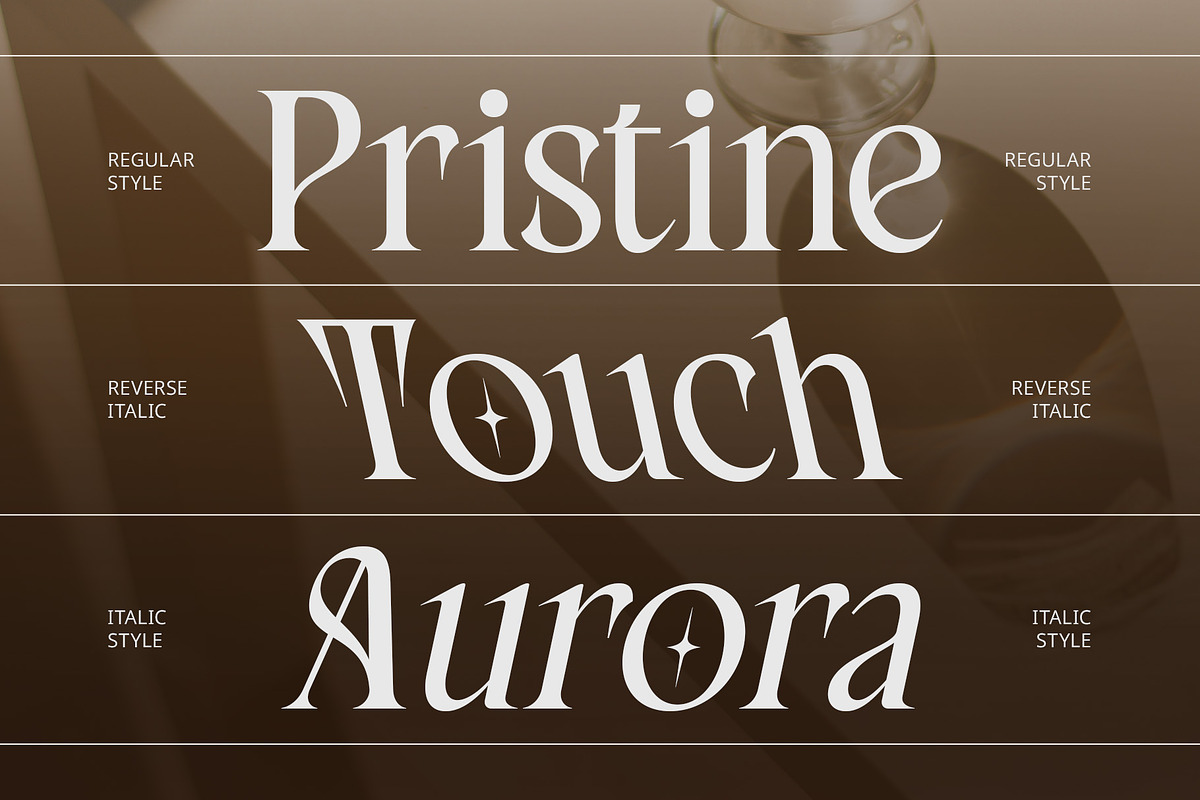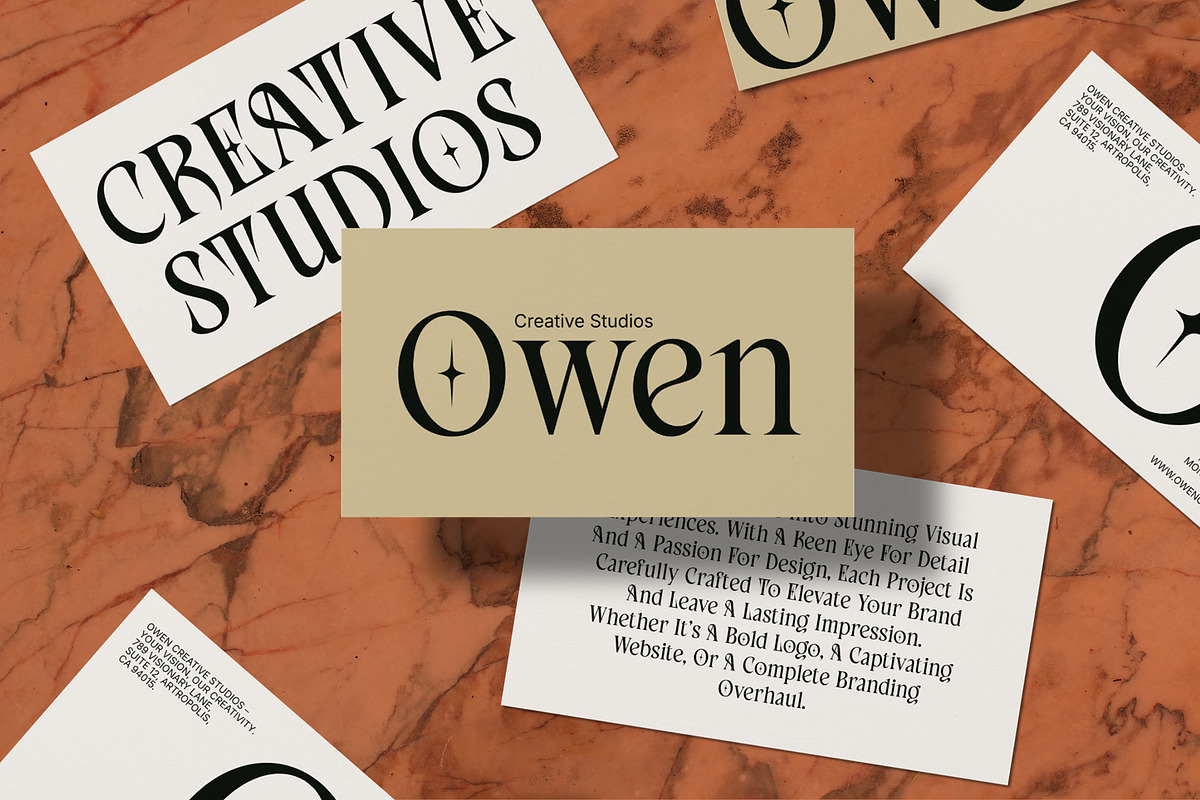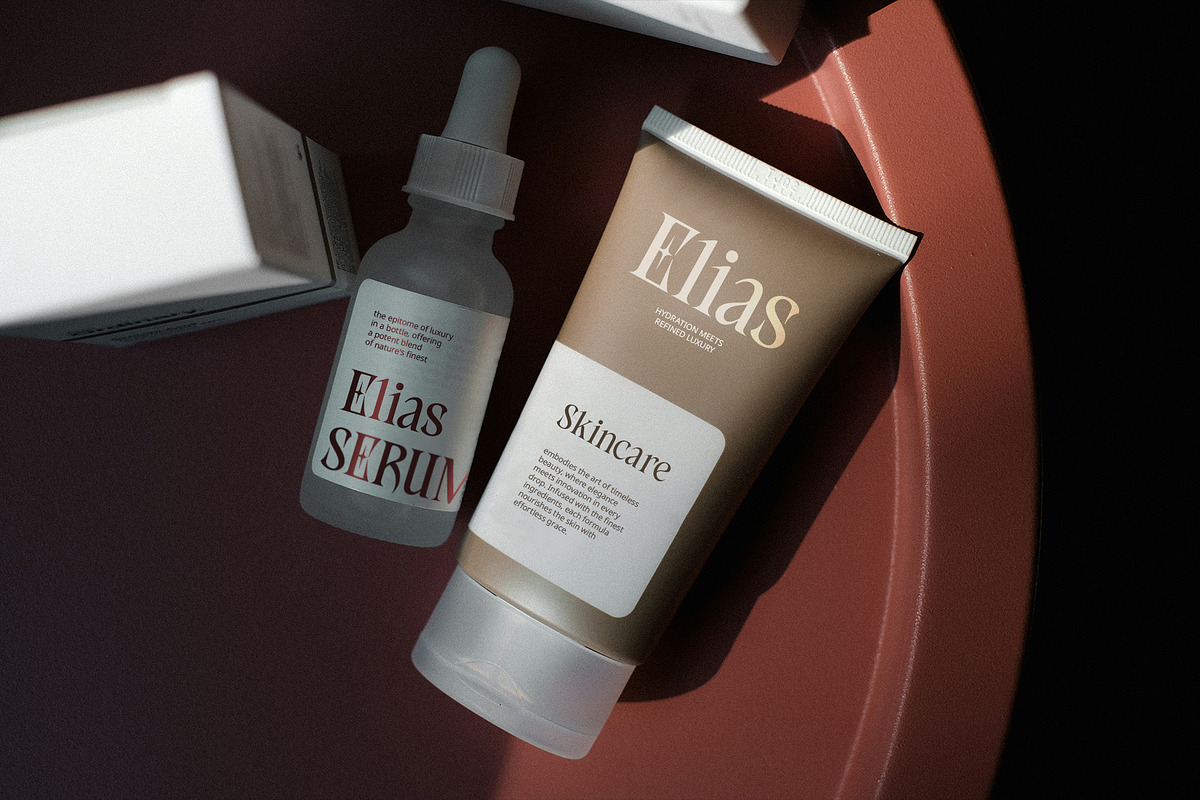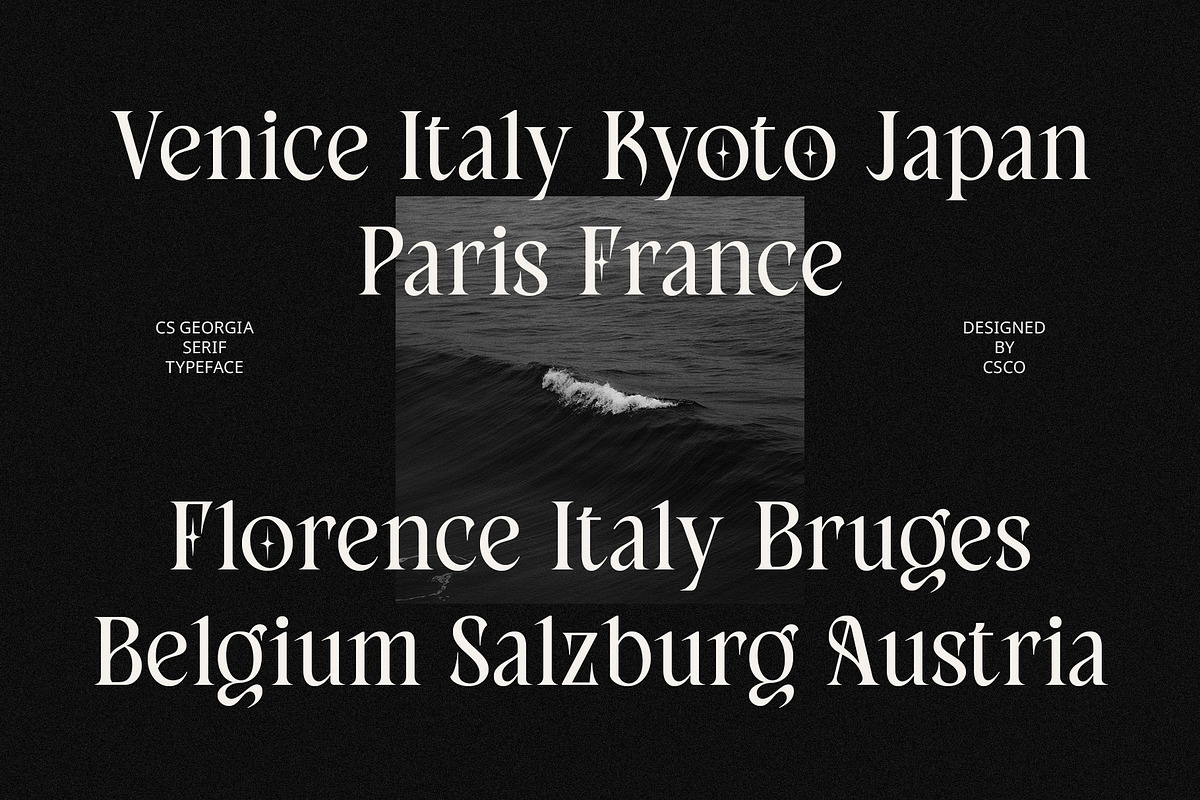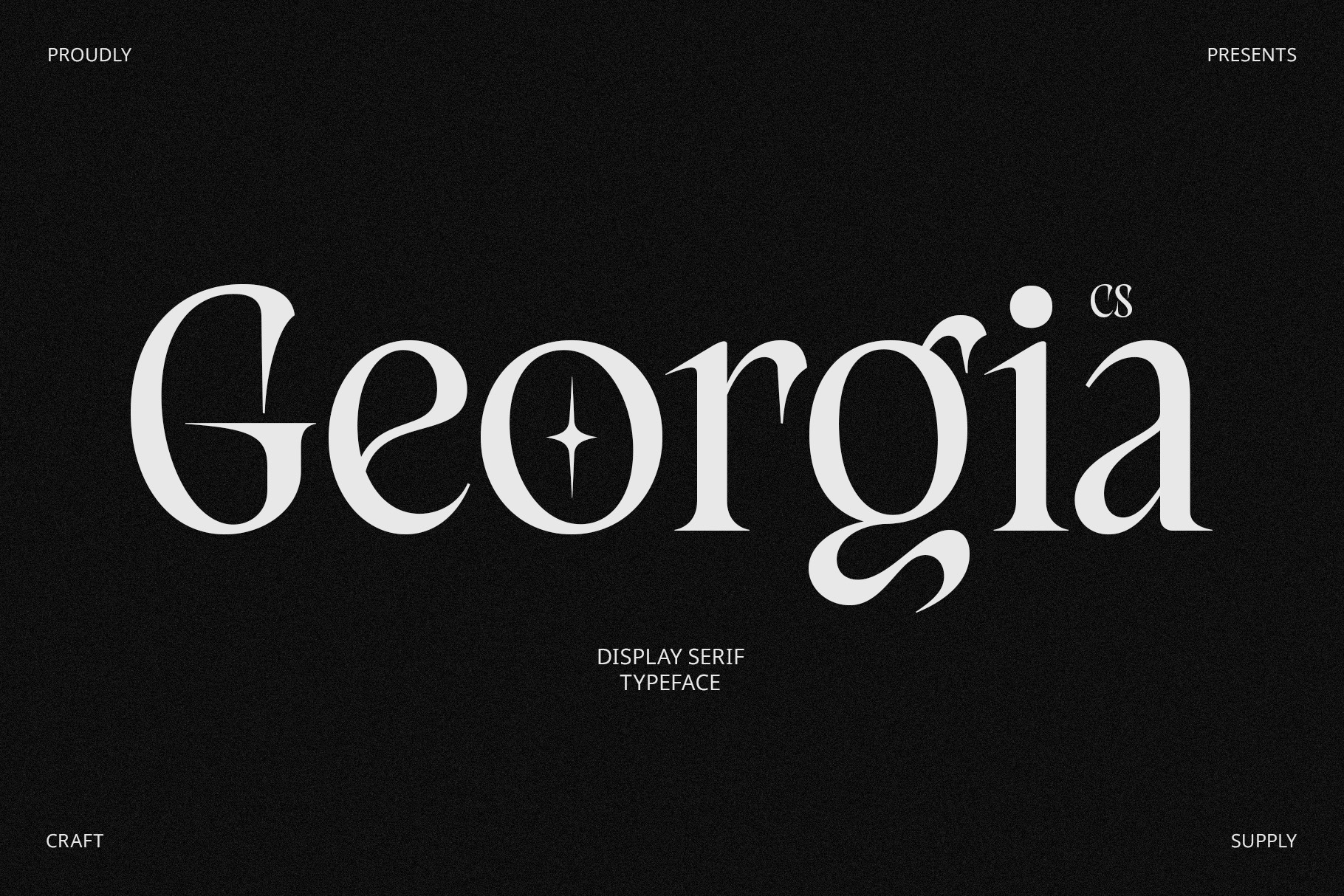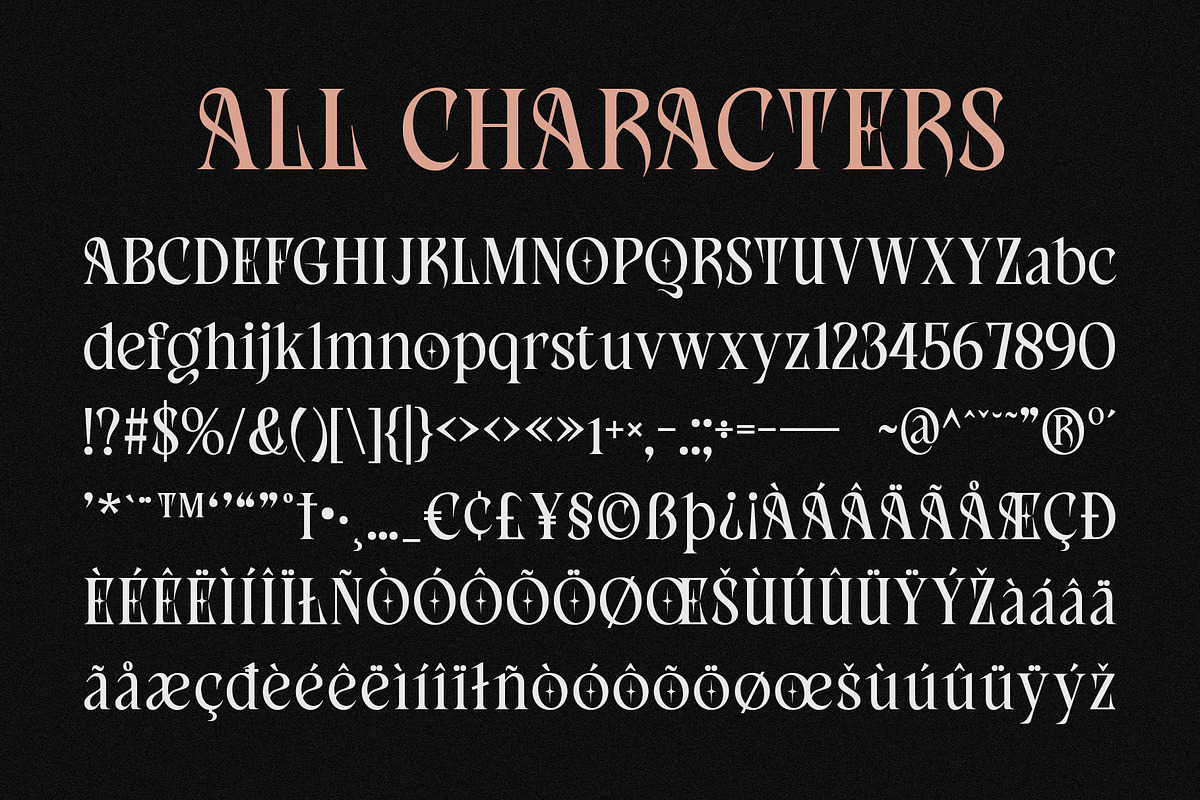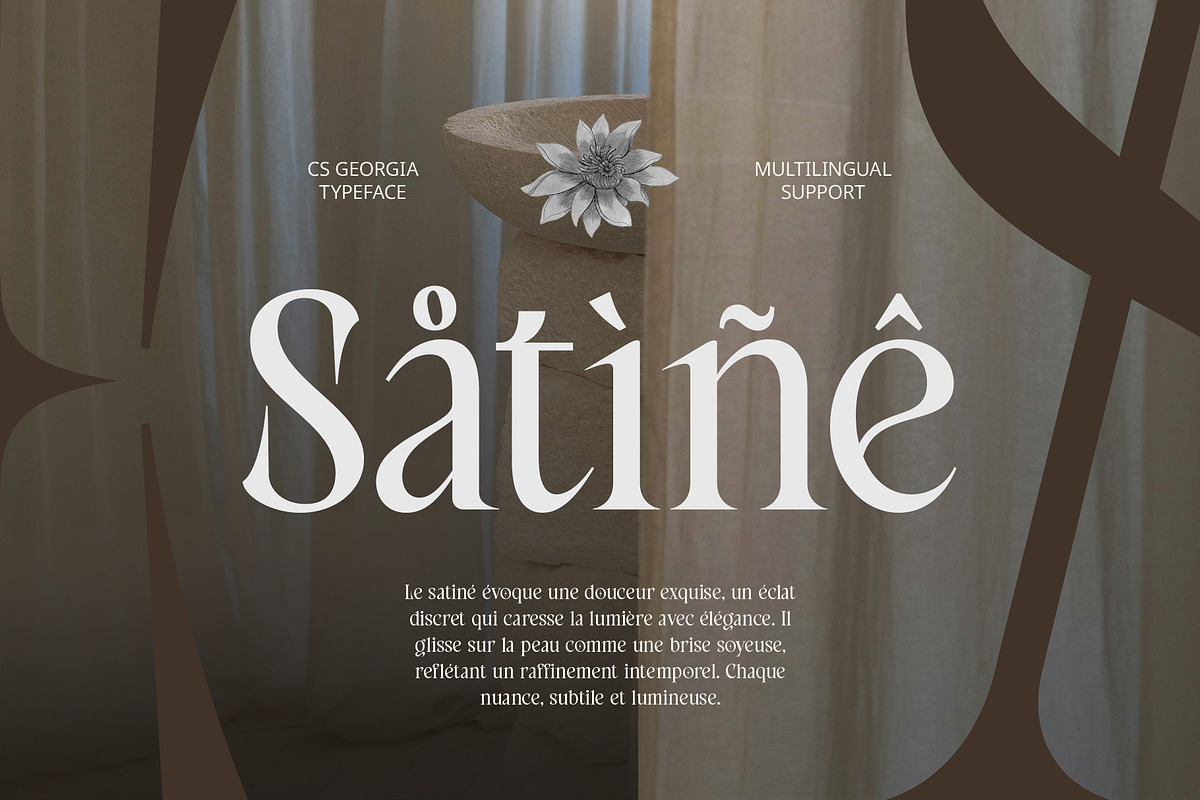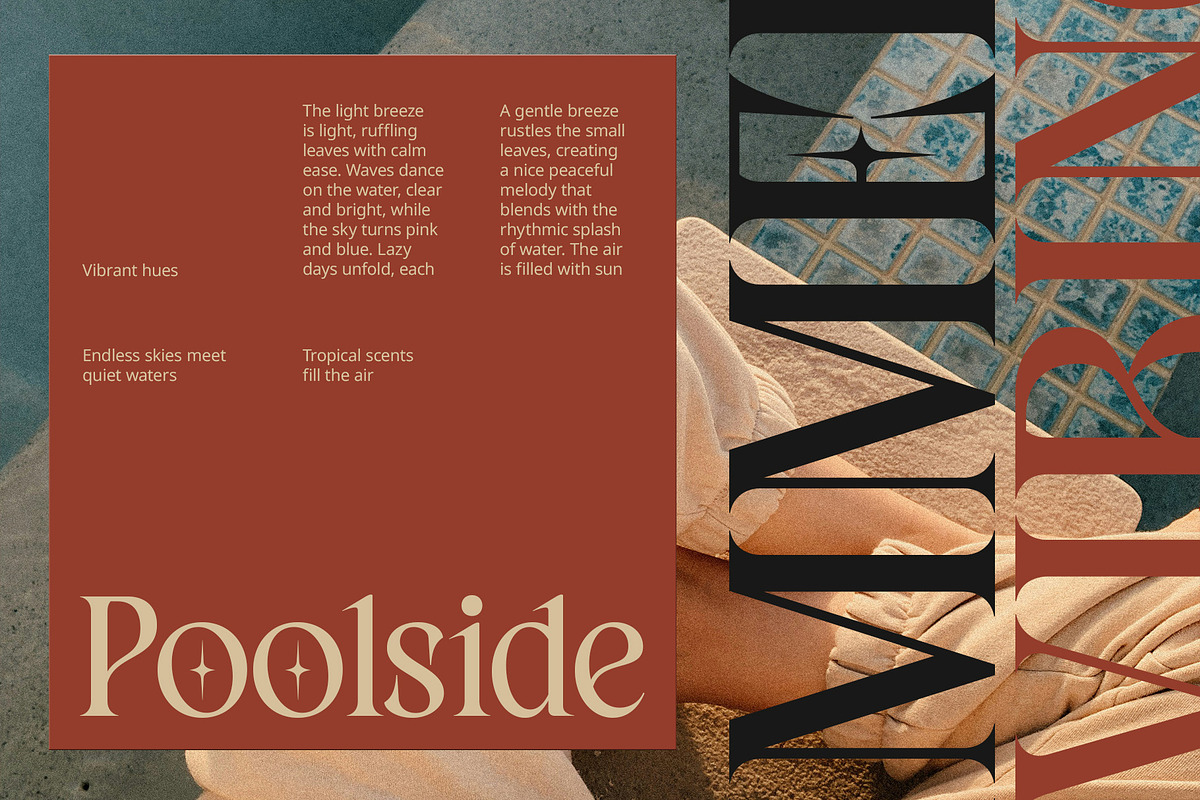
CS Georgia – Elegant Font
CS Georgia – Elegant Font: Classic Elegance with a Modern Twist
Refined Serif Design CS Georgia is a modern display serif font that expertly balances the luxury of traditional design with a clean, contemporary touch. Its long, sharp serifs and well-defined edges create a refined and polished impression, evoking a sense of timeless sophistication. The font’s proportions are more symmetrical and modern compared to traditional serif fonts, giving it a fresh yet classic appeal. Whether for luxury branding or high-end editorial layouts, CS Georgia exudes a sense of professionalism and elegance that commands attention.
Symmetrical and Modern Proportions The symmetrical design of CS Georgia enhances its clean and streamlined aesthetic, offering a perfect balance of tradition and modernity. Its clarity and precision make it an excellent choice for projects that demand both sophistication and readability. The fine-tuned proportions create a harmonious, balanced appearance, ideal for conveying credibility and timeless appeal in modern design applications.
Perfect for Luxury and Professional Projects CS Georgia excels in designs where elegance, professionalism, and timeless appeal are essential. Whether used in luxury branding, business cards, editorial design, or product packaging, this font makes a statement of class and refinement. Its versatility allows it to elevate any project, bringing a touch of sophistication to everything from upscale fashion branding to corporate materials.
- CS Georgia Regular
- CS Georgia Italic
- CS Georgia Reverse Italic